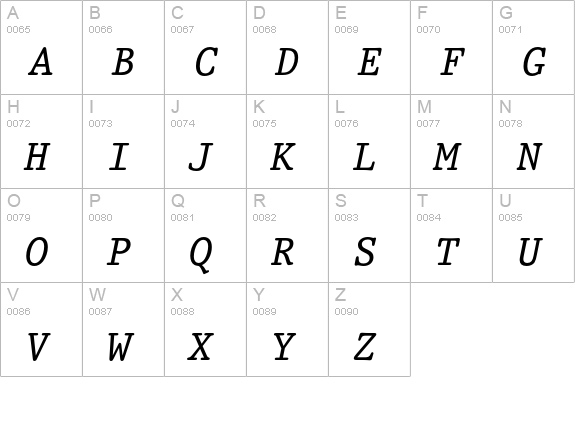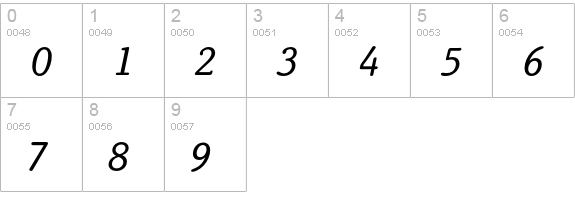
Prestige 12 Pitch Italic Font Details
Prestige 12 Pitch Italic is a distinctive, italic variant in the Prestige typeface family \xE2\x80\x94 well suited to design and typography projects.
Prestige 12 Pitch Italic font exudes sophistication and elegance with its sleek and modern design. This versatile font is perfect for adding a touch of class to any project, whether it's for a professional presentation or a creative design. The italic style adds a dynamic and stylish flair to your text, making it stand out from the crowd. And the best part? Prestige 12 Pitch Italic font is completely free to download at FontsMarket.com! Now you can elevate your design projects without breaking the bank. Don't miss out on this opportunity to enhance your work with this stunning and stylish font. Download Prestige 12 Pitch Italic font today and take your designs to the next level!